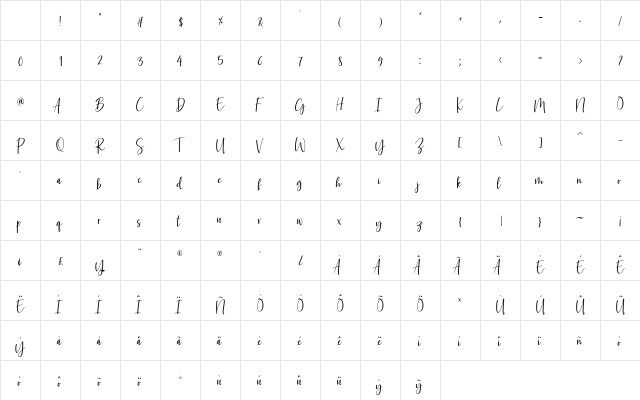
wongsolo is a composed and adaptable typeface that performs quietly and consistently across a wide range of design contexts.
Pro Tip: Use wongsolo in both headline and body roles to test its range before committing to a single application.